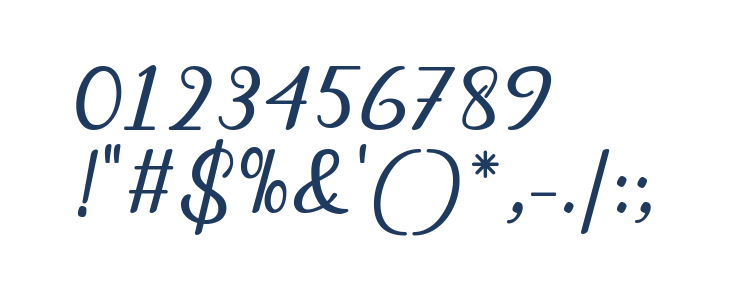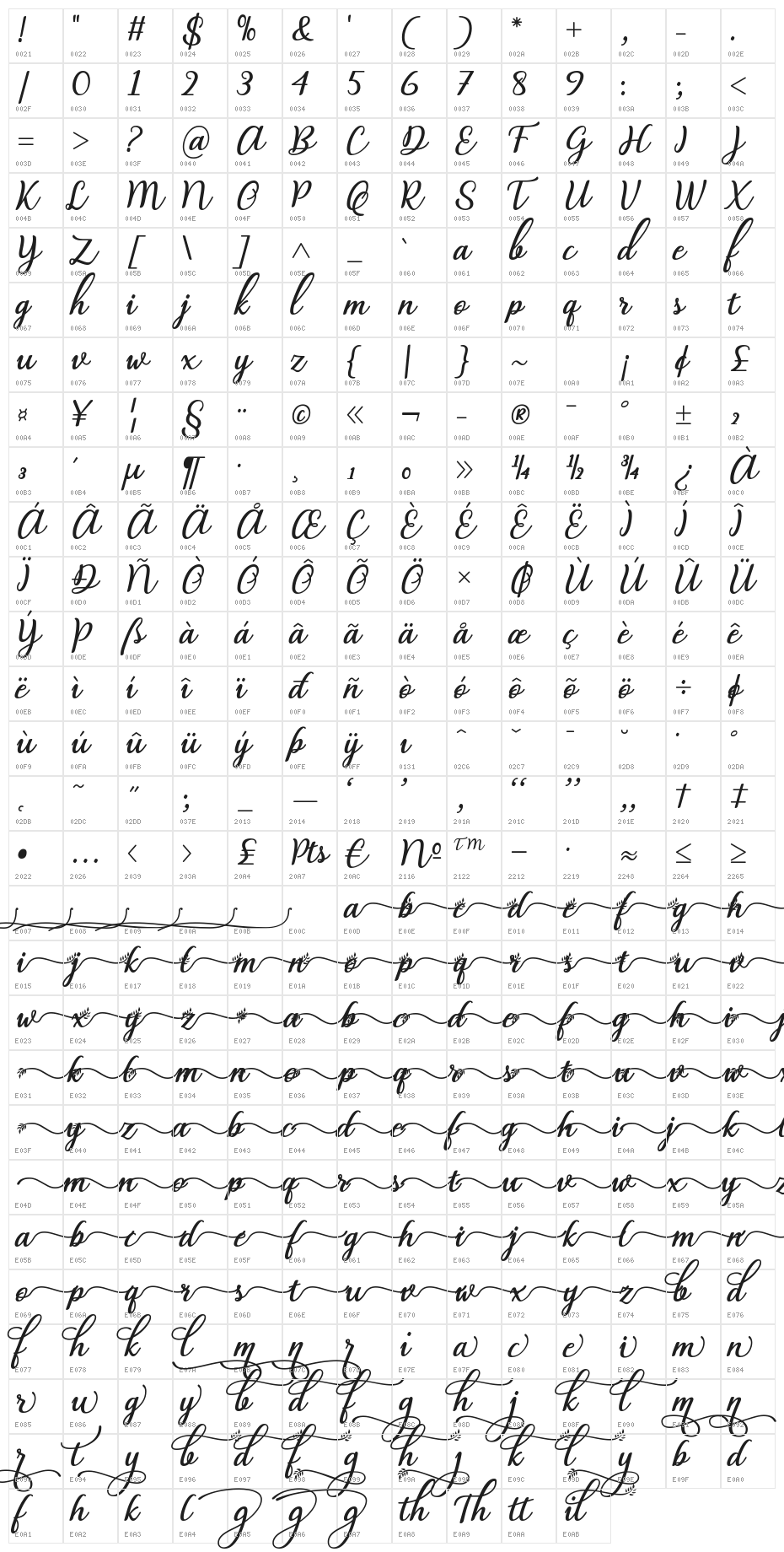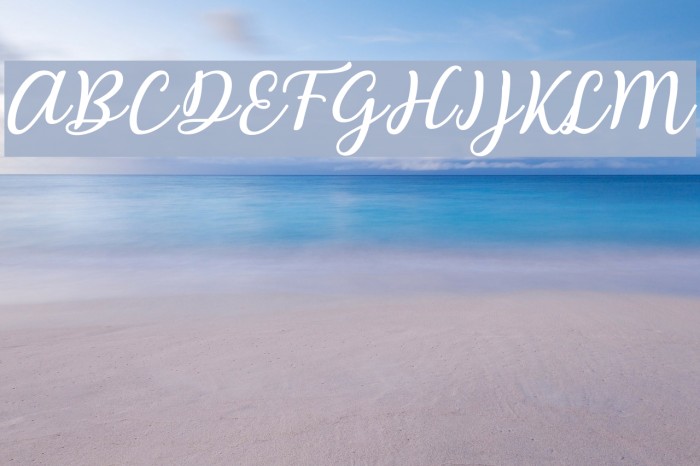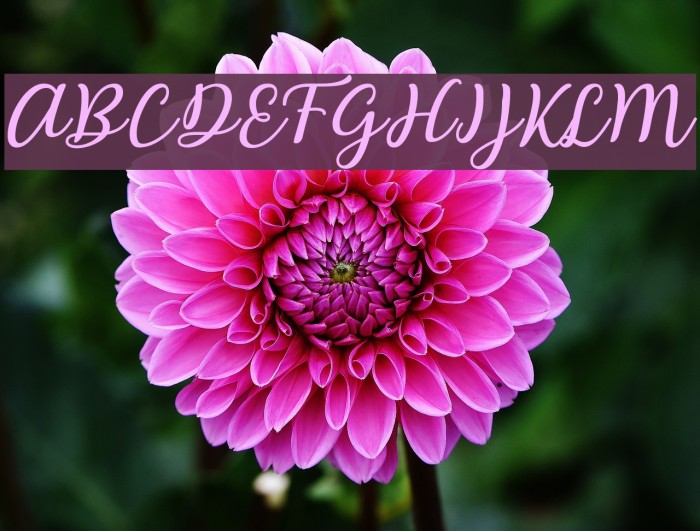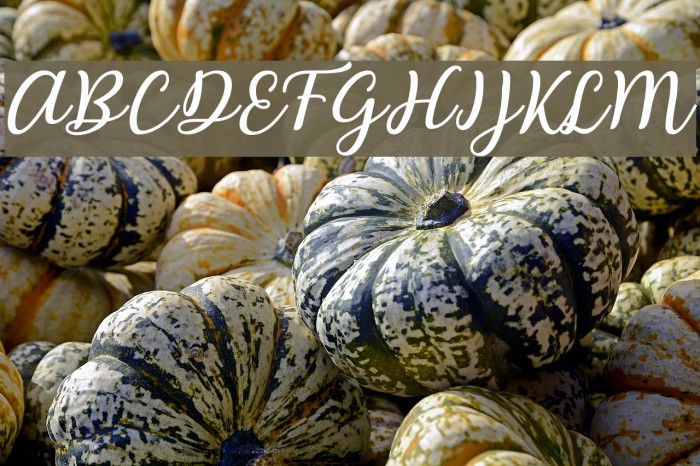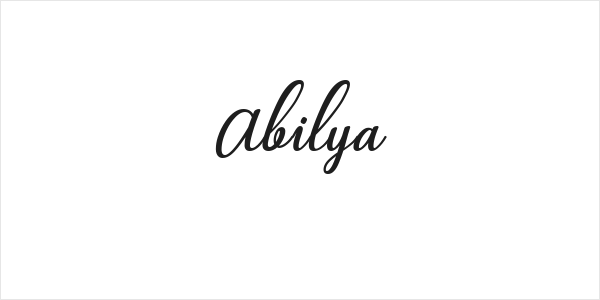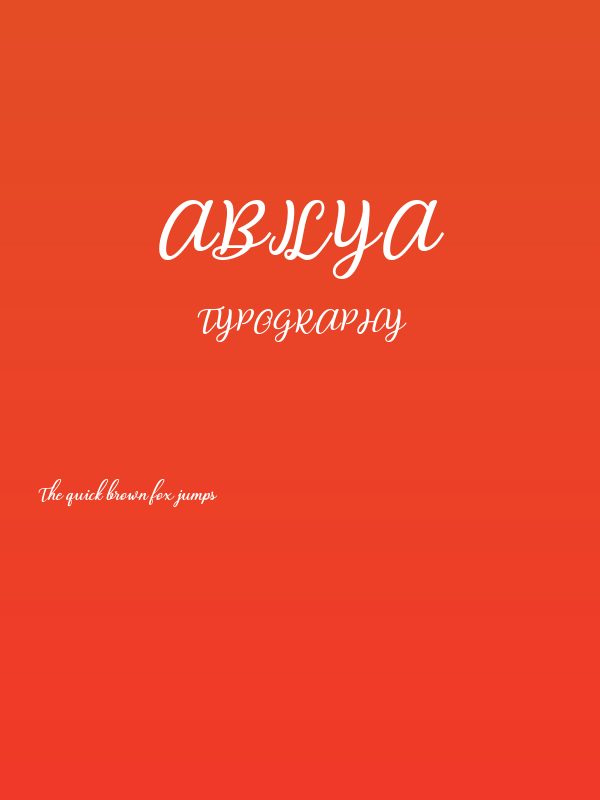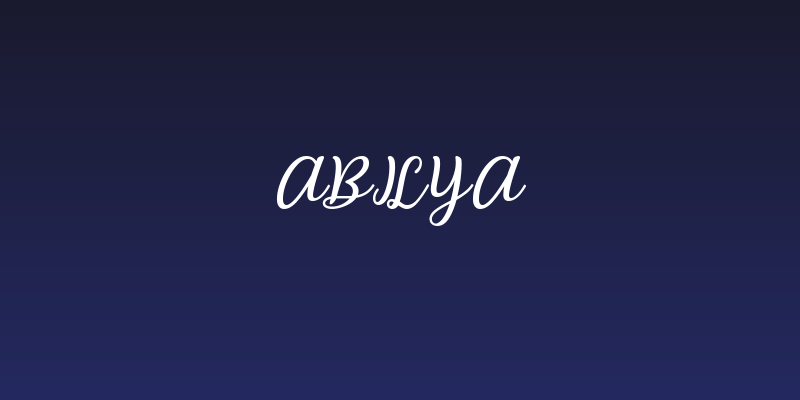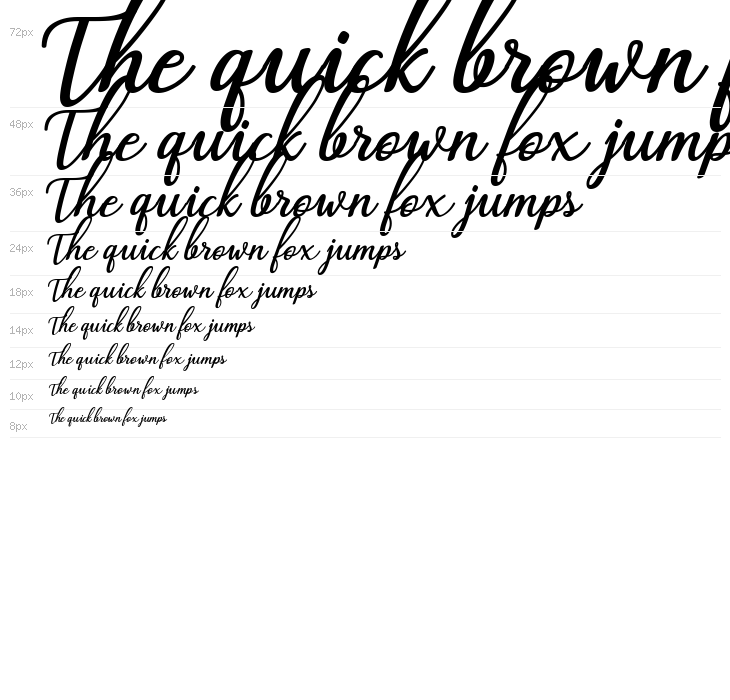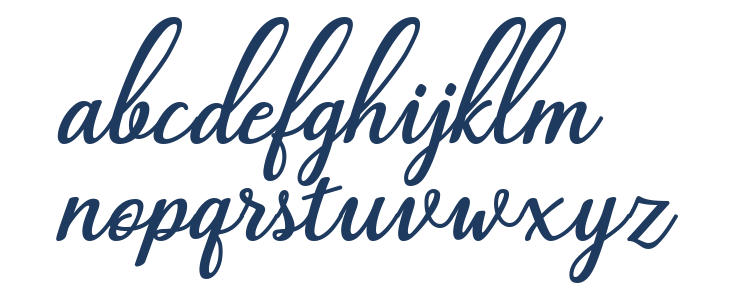
Abilya Font
Abilya Description
This font features a dynamic and elegant script style, characterized by fluid, cursive strokes that convey a sense of sophistication and grace. The uppercase letters are slightly more ornate, with sweeping curves and loops, while the lowercase letters maintain a consistent flow with subtle variations in stroke width. The numerals are clear and legible, complementing the overall aesthetic. Special characters are integrated seamlessly, maintaining the font's cohesive appearance. This font is ideal for projects that require a touch of elegance and personal flair.
| Overall Style | Elegant |
| Use Case | Logos, Invitations, Branding |
| Proposed Projects | Ideal for wedding invitations, greeting cards, branding, and elegant packaging. |